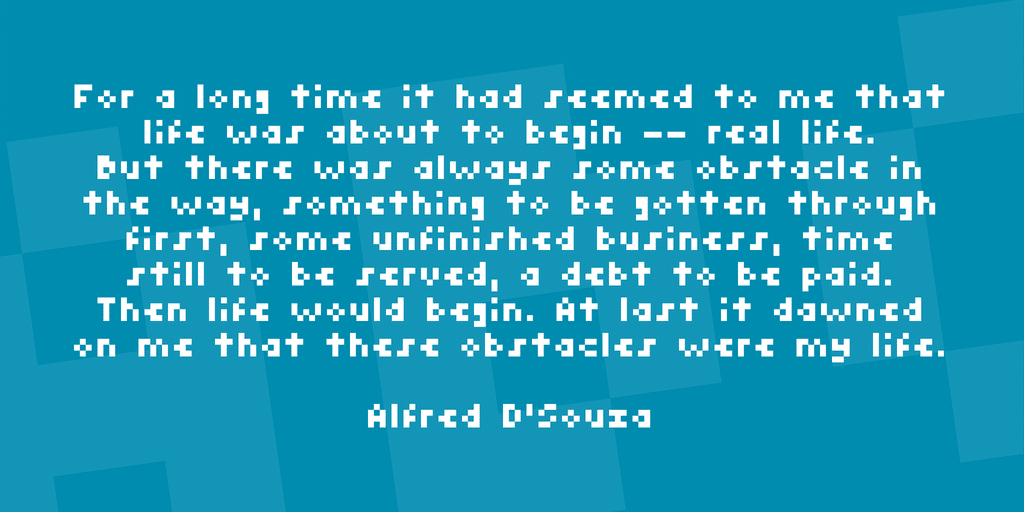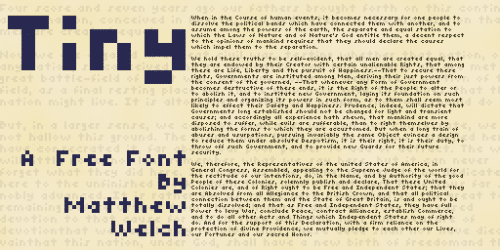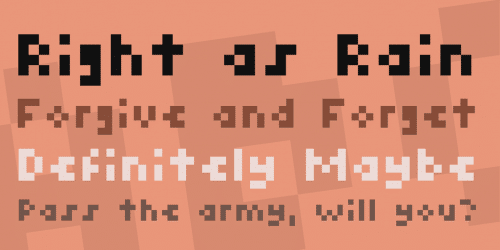
Tiny is, I believe, the smallest possible font (in pixel size). It stands at a lofty four pixels tall (five if you count descenders), yet it still contains all the printable ASCII characters. Presented here in TrueType format, you can print it out at any size you want, in order to make it actually readable.
- Designer: Matthew Welch